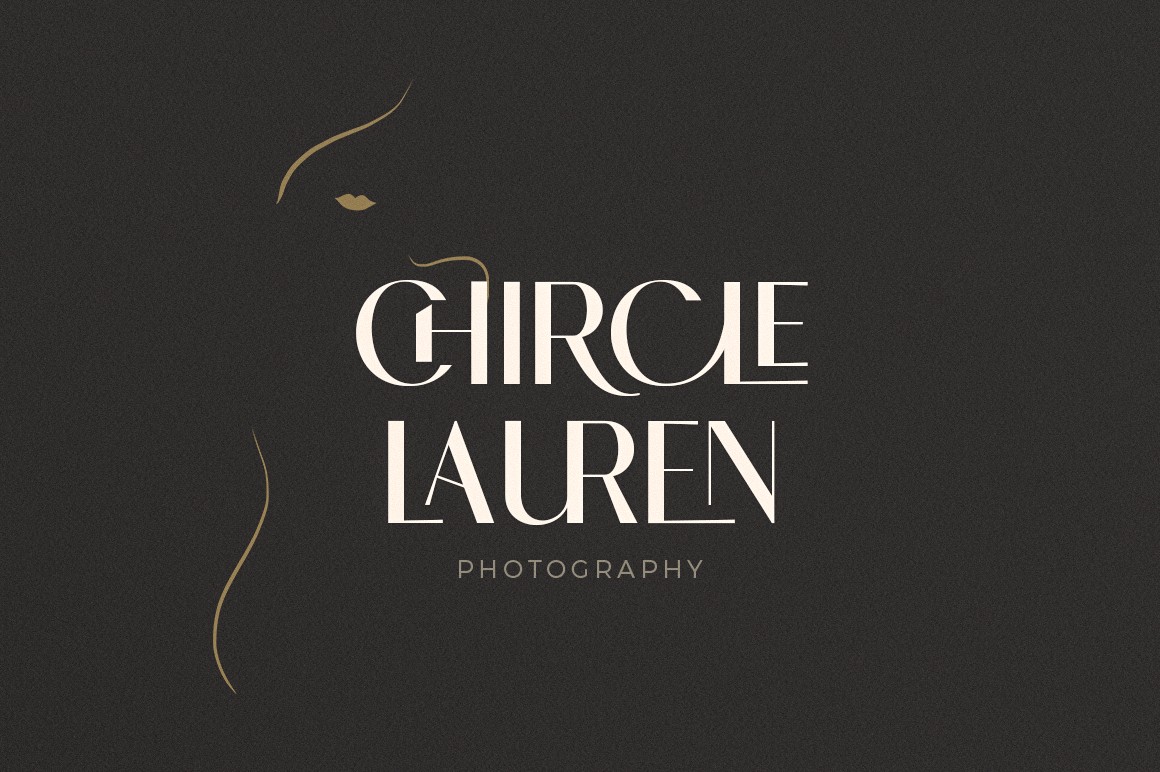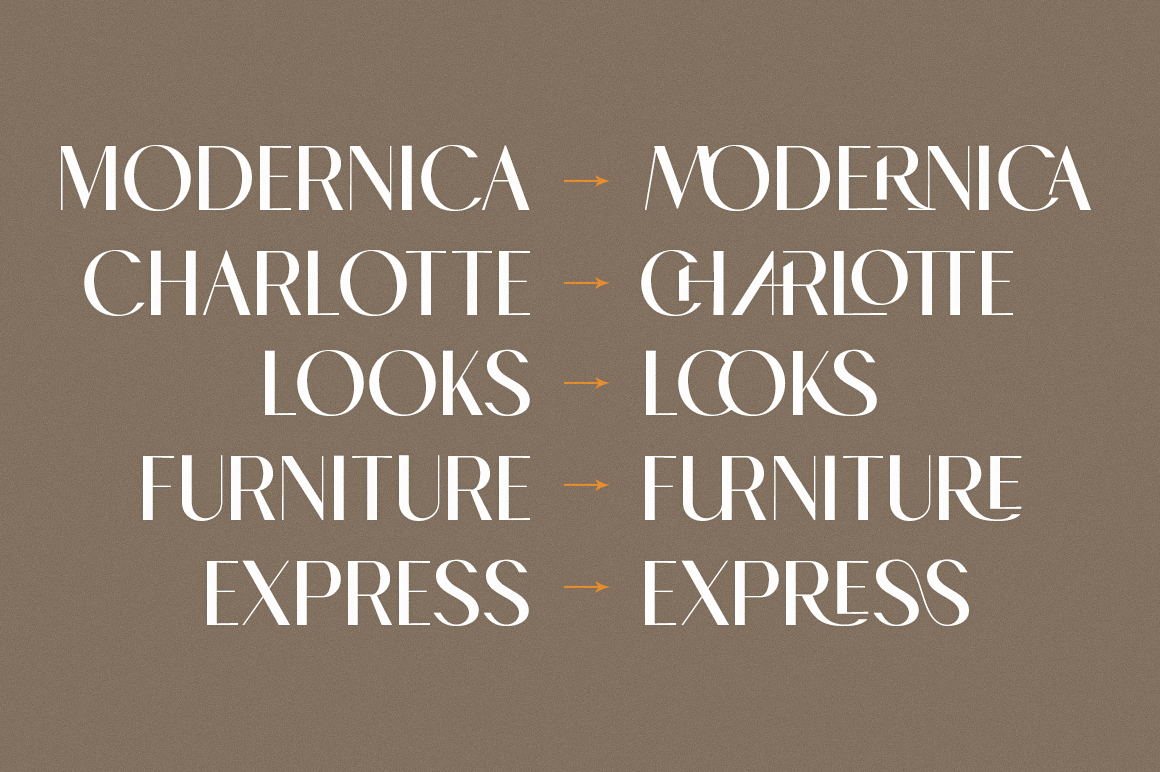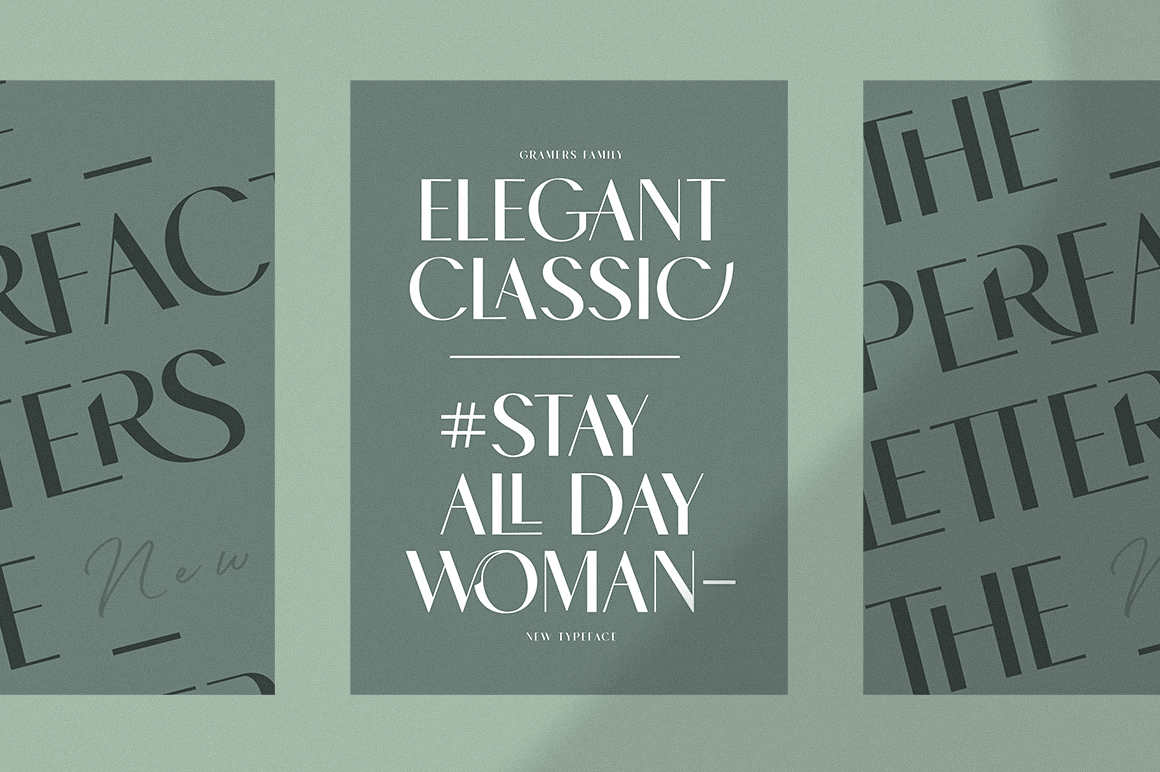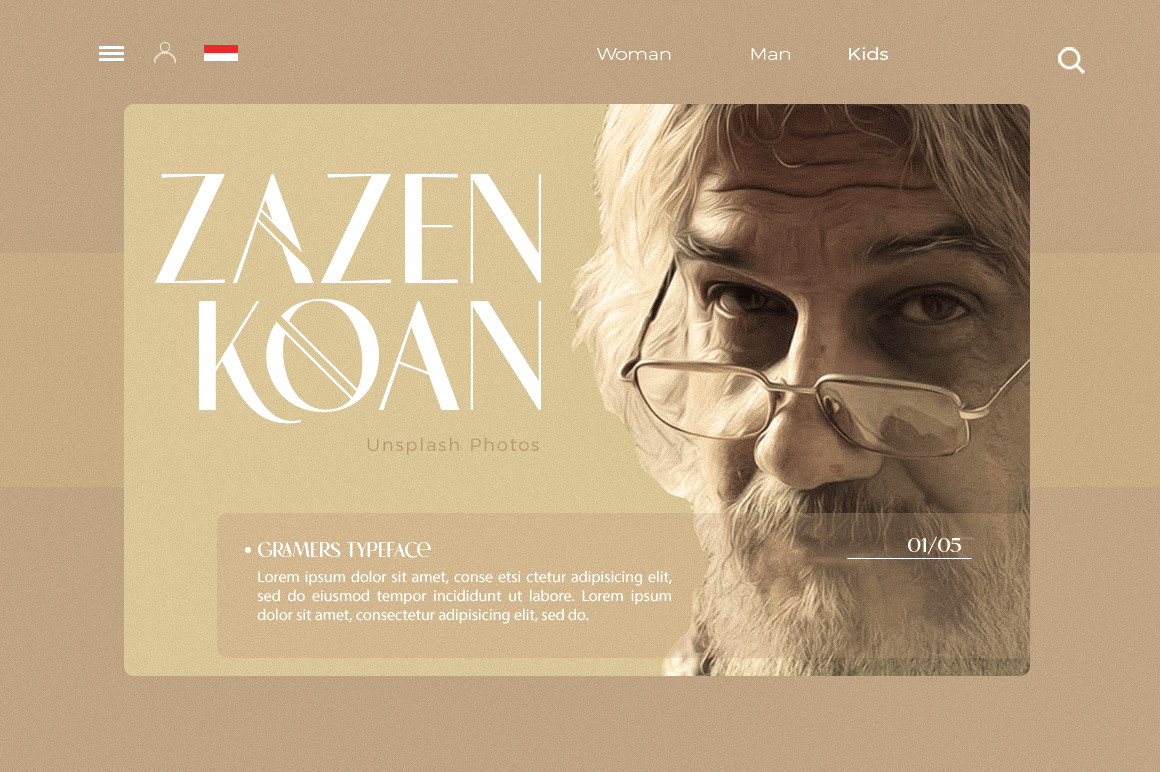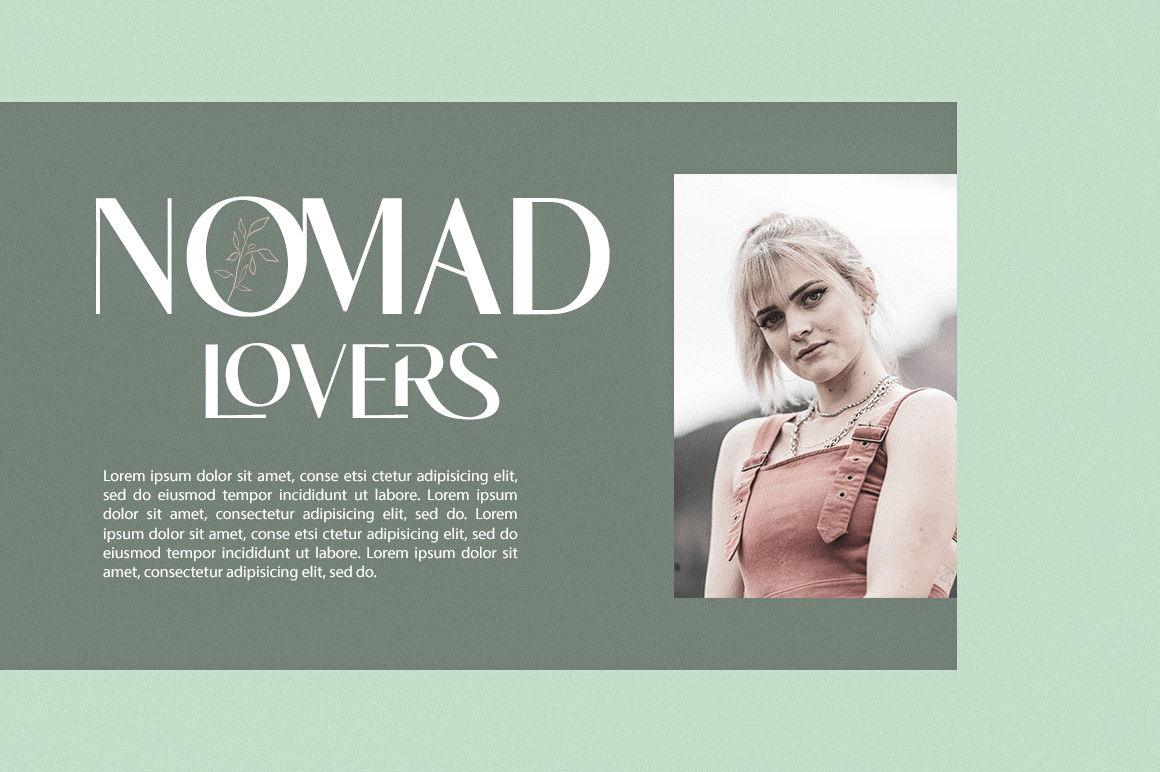
About Gramers
Gramers is an elegant and modern minimalist font family, a new roman sans serif font carefully crafted. These font ideas come from various references, from vintage, classic, art deco, to the modern era. Carefully drawn with high contrast between the strokes…